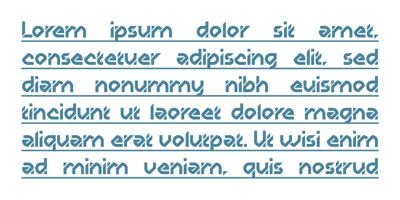
KD Diagona Font
The KD Diagona Font excels in various design applications including dynamic diagonal design branding, angular architecture firm communications, geometric pattern marketing materials, diagonal construction company identities, angular art gallery signage, diagonal motion graphics promotions, geometric fashion brand packaging, angular technology startup materials, diagonal layout design projects, and sophisticated geometric projects that demand diagonal precision and angular sophistication.
What makes the KD Diagona Font exciting is its dynamic embodiment of diagonal movement and angular geometry through letterforms that capture the essence of directional energy and the sophisticated precision of diagonal design principles. This typeface demonstrates exceptional directionality through carefully angled characters that suggest the forward momentum of diagonal lines, the architectural beauty of angular structures, and the visual dynamism that makes diagonal compositions so compelling and geometrically striking. The font's diagonal personality makes it perfect for design studios and architectural firms seeking to communicate geometric authenticity, angular innovation, and the kind of directional energy that creates memorable diagonal experiences through typography that literally moves with angular precision.
The KD Diagona Font family typically includes angular weight variations that enhance the diagonal aesthetic, featuring geometric styling options and extended character sets optimized for architectural communications and design applications. These family options often include diagonal-inspired alternates, geometric symbols, and angular decorative elements that provide designers with comprehensive tools for creating authentically geometric typography that celebrates diagonal design while maintaining contemporary appeal and architectural credibility.
Design professionals and architectural organizations consistently select KD Diagona Font for projects requiring typography that communicates geometric authenticity and diagonal sophistication. This typeface delivers exceptional performance in architectural marketing, design branding, and geometric communications where establishing direction and creating angular atmosphere is essential for design-conscious engagement. The font's diagonal character makes it particularly effective for construction and motion graphics applications. Download KD Diagona Font today to access this geometrically dynamic typeface that transforms diagonal communications with its angular elegance and geometric sophistication, creating compelling design experiences that honor the magnificent precision of diagonal geometry while celebrating the directional energy that defines authentic angular design and geometric excellence.